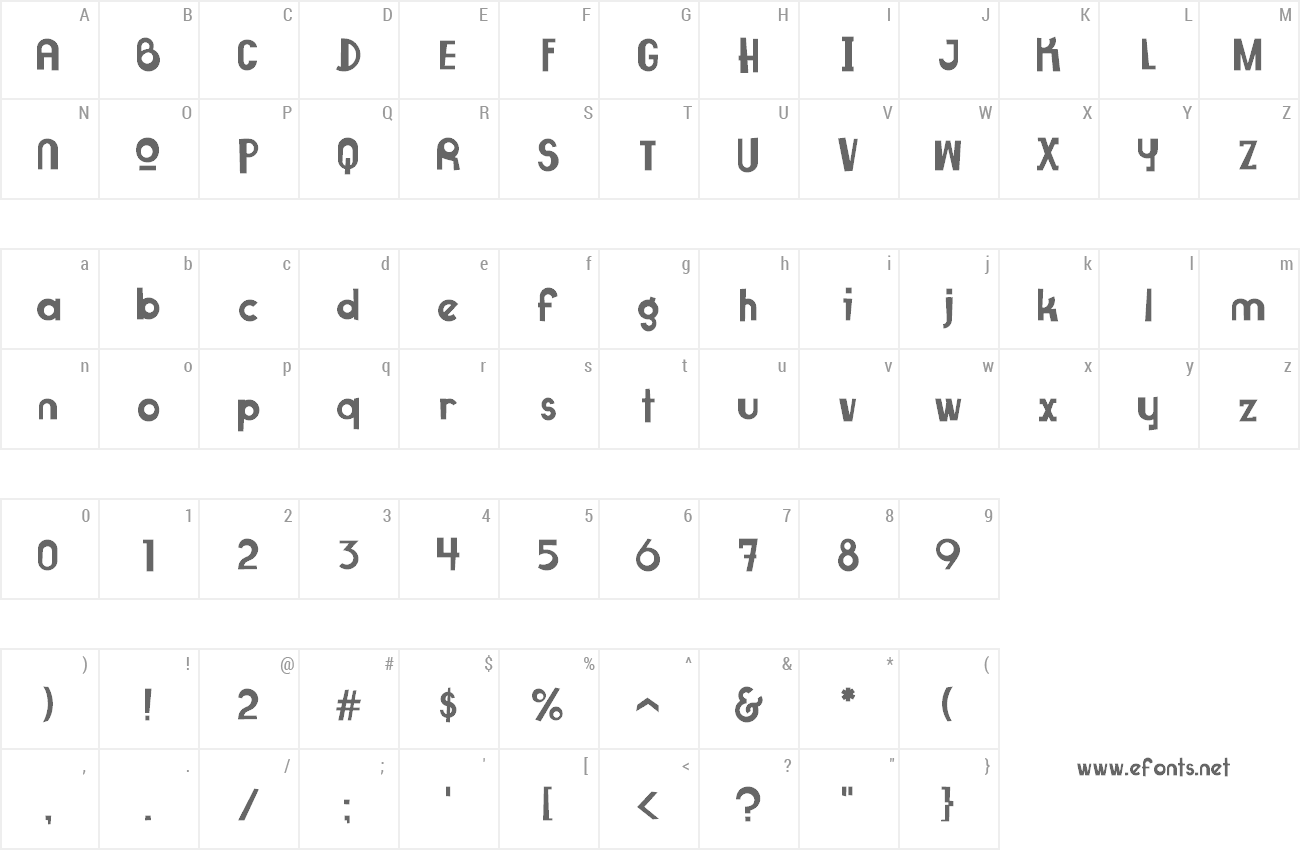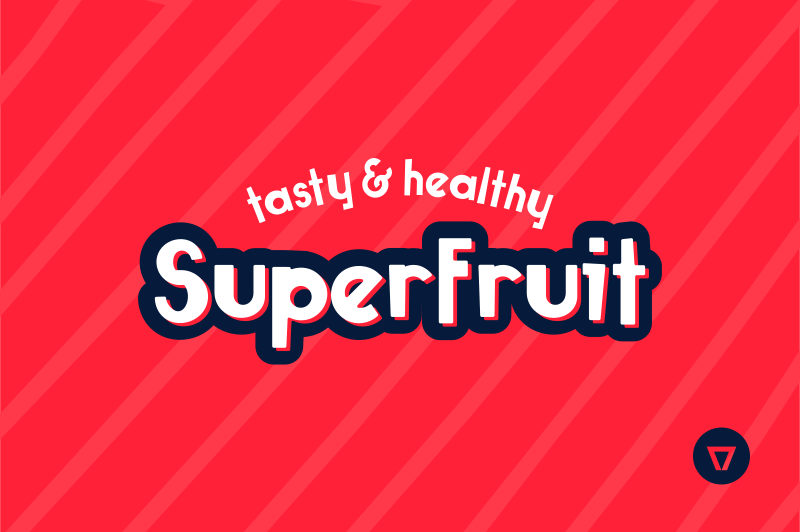
Preview and download Superfruit Font. Created by NimaVisual in Fancy Cartoon styles with Free for personal use license.
| Font name: | Superfruit |
| Author: | NimaVisual |
SUPERFRUIT is a tasty and healthy display font, with lots of fun and attitude. Perfect for posters, flyers, invitations, logos and more. Need a commercial license? https://sellfy.com/p/y0dQ/ Find great fonts and design resources: https://creativemarket.com?u=NimaVisual |